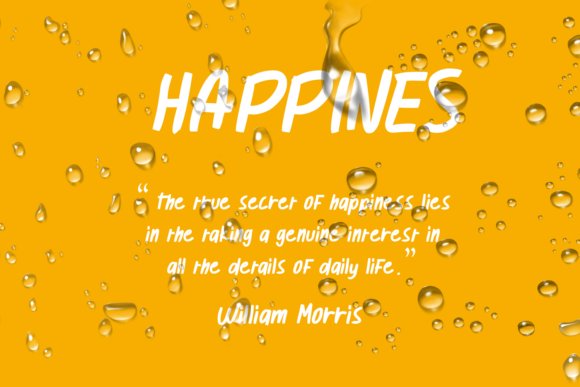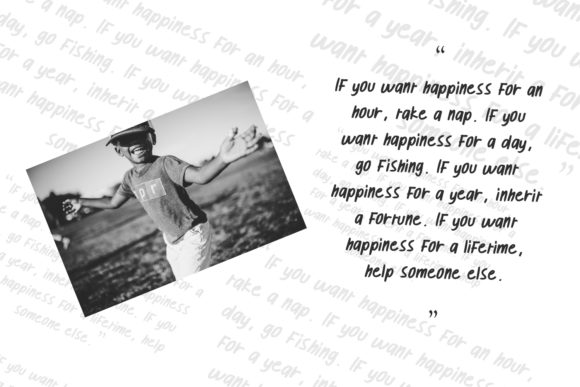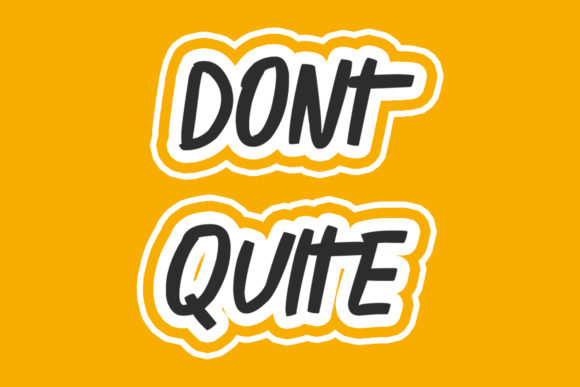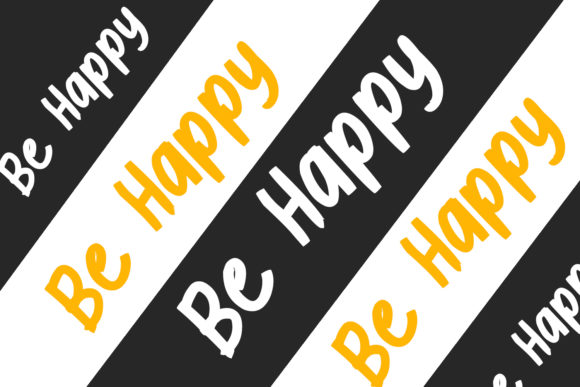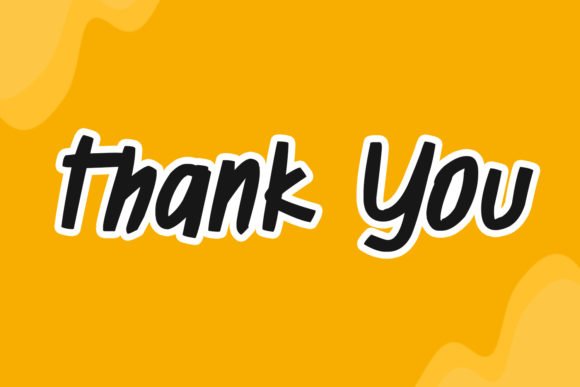
Introducing Blinkids Font: The Ultimate Friendly Handwritten Font
Are you tired of using the same old fonts for your creative projects? Look no further! Blinkids Font is here to revolutionize your design game with its incredibly friendly and casual handwritten style. This adorable font is perfect for designers, crafters, and DIY enthusiasts who want to add a personal touch to their work.
What Makes Blinkids Font So Special?
Blinkids Font is a cute and casual handwritten font that exudes warmth and friendliness. Its unique and playful style makes it perfect for a wide range of creative projects, from social media graphics to DIY crafts. Whether you’re looking for fonts for Instagram, calligraphy scripts, or hand-lettered quotes, Blinkids Font is the perfect choice.
Perfect for Instagram and Social Media
In today’s digital age, having a strong online presence is crucial. With Blinkids Font, you can create stunning social media graphics that will make your followers stand up and take notice. Its friendly and approachable style makes it perfect for Instagram posts, Facebook updates, and Twitter headers. You can use it to create engaging quotes, fun facts, or even just to add a personal touch to your posts.
DIY Projects Made Easy
Are you a crafty person who loves working on DIY projects? Blinkids Font is here to make your life easier! With its beautiful handwritten style, you can create stunning calligraphy scripts, hand-lettered quotes, and more. Whether you’re working on a scrapbooking project, creating a handmade card, or designing a custom sign, Blinkids Font is the perfect choice.
Turn Your Creative Ideas into Art
Blinkids Font is more than just a font – it’s a tool that can help you turn your creative ideas into true pieces of art. With its unique and playful style, you can add a personal touch to your designs and make them stand out from the crowd. Whether you’re a professional designer or a DIY enthusiast, Blinkids Font is the perfect choice for anyone who wants to create something truly special.
Key Features of Blinkids Font
- Cute and casual handwritten style
- Incredibly friendly feel
- Perfect for Instagram and social media graphics
- Ideal for DIY projects, calligraphy scripts, and hand-lettered quotes
- Unique and playful style
Tips and Tricks for Using Blinkids Font
Here are some tips and tricks for getting the most out of Blinkids Font:
- Use Blinkids Font in combination with other fonts to create a unique and eye-catching style
- Don’t be afraid to get creative and try new things – Blinkids Font is perfect for experimenting with different design styles
| Font Name | Blinkids Font |
| Author | SharkStudio |